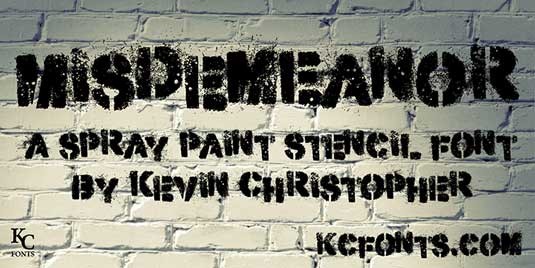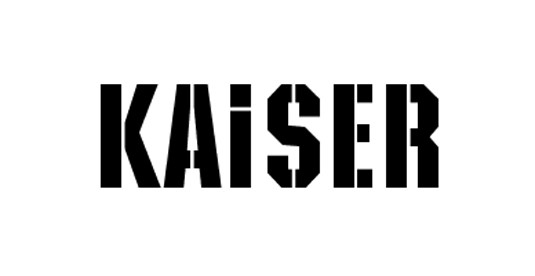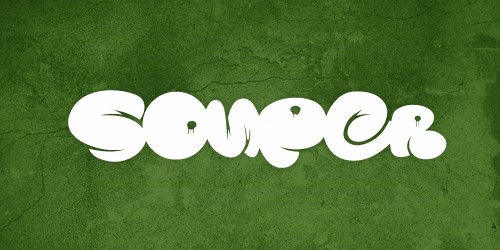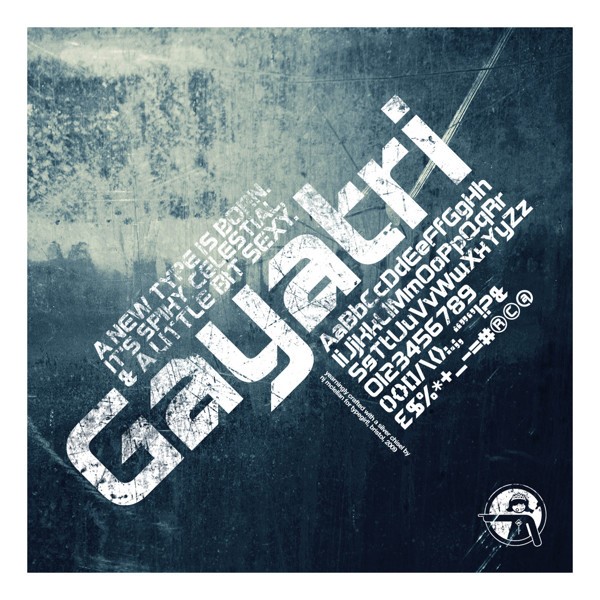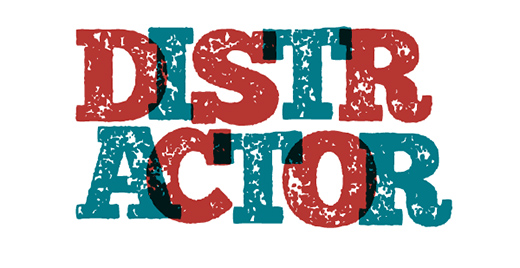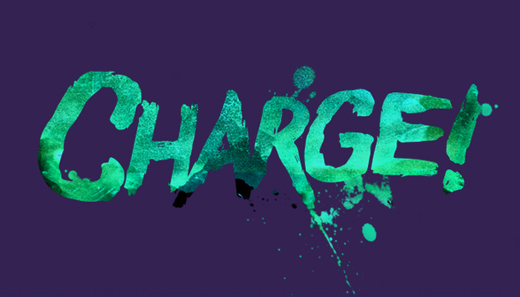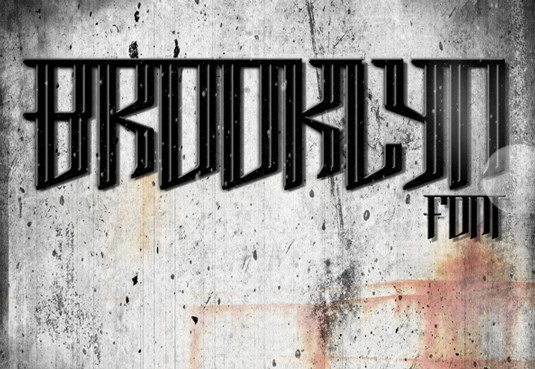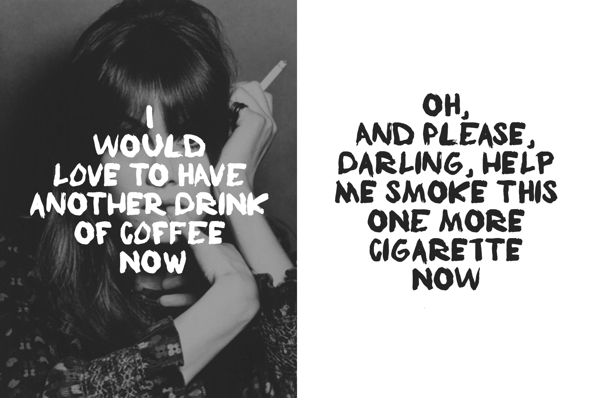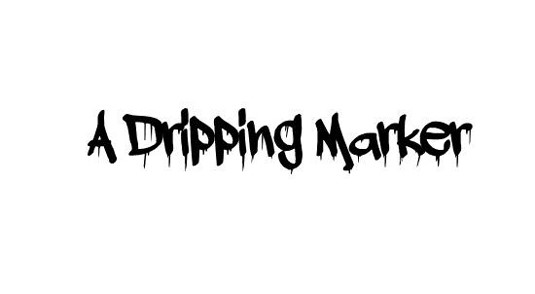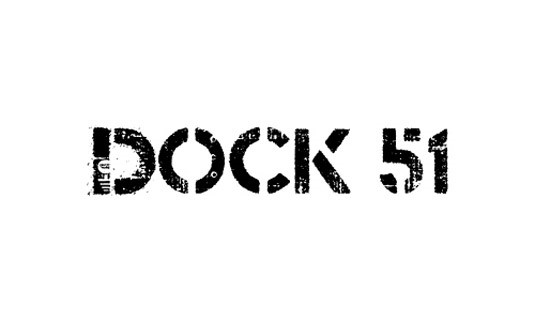
Typo-Thuggin’ it with 20 Edgy and Urban Fonts for Free!
There’s a time and place for Garamond, Century, and Gill Sans but it’s not in this article. That’s because we’ve rounded up some of the most dangerous, rebellious, and straight-up awesome fonts that we could gather. Representing the edgier side of design, these urban fonts are free to download at the links provided and will give your artwork that bad-boy design feel that acts first and asks questions later!
1.Misdemeanor
Misdemeanour is a stencil font that looks like it belongs on a Banksy piece of artwork.
2. Brooklyn
“Hey! ‘Am warkin’ here!” This Brooklyn font has all the edge and attitude of a Brooklyn native – a tough and smart design.
3. A Dripping Marker
Coming to a bus shelter near you! This dripping marker font is as rebellious as a font gets.
4. Dock 51
A supercool stencil font that looks distressed! So maybe you should download it for free and save it from a watery doom.
5. The Battle Continuez
Love this hardcore graffiti font that looks like it comes spraying with rebellious fervor, right out of the aerosol and into your designs.
6. Kaine
This is a retro stencil font that looks like it’s stepped straight out of a Spaghetti Western in the 60’s.
7. Ultimate Midnight
The dark night may have returned with this dark and brooding urban font.
8. Inner City
“We’re rockin’ that beat right across the street” with this old school graffiti font.
9. Scrawl
Tag your designs with this wicked scrawl font
10. Octin Stencil
“Sound off, 1,2, sound off 3,4!” This is a font in seven different weights for you to download…Ooorah!
11. Kaiser
Kaiser is a tall stencil font that has a retro wartime vibe to it.
12. Souper
This is a souper-douper urban font that is fun in a cool and edgy way!
13. Velhos Tempo
A hand-drawn font that has a touch of punk rock baroque!
14. Penultimate
The perfect amount of hand-drawn realism in this wicked font.
15. Riot!
This is an angry font that  believes the system is corrupt and we need to take a stand with riotous vehemence! (Calm down font…you’re cool with us!)
16. Suburban Legends
A great hand drawn font…with a flourish!
17. Gayatri
A post apocalyptic urban font with a cool sci-fi vibe.
18. Distractor
A seriously cool weathered font for vintage posters and faded artwork.
19. Wasteland
It’s only a teenage wasteland, but it’s also an awesome  rock n’ roll font!
20. Cigarettes & Coffee